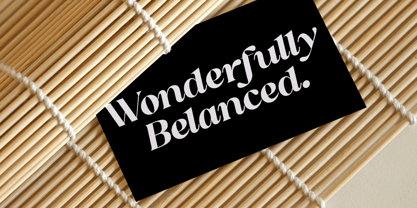
Sakem
von madjack.font
Die Schriftfamilie Sakem wurde von Zaki Muhammad entworfen und von madjack.font veröffentlicht. Sakem enthält 20 Stile und Familienpaketoptionen. Mehr über diese Familie
Sakem Elegance - Modern Serif Font Family Sakem Elegance is a modern serif font family that blends elegance with a refined retro character. Featuring Regular and Italic styles in various weights, this font is designed for flexibility, sophistication, and strong visual impact. Smooth curves and balanced proportions make Sakem Elegance perfect for both premium and contemporary design projects. Sakem Elegance also includes a complete set of: Uppercase and lowercase letters Multilingual characters Numbers Punctuation What will you get? We hope you enjoy our font, and if you have any questions, feel free to send us a message, and I'll be happy to help :)